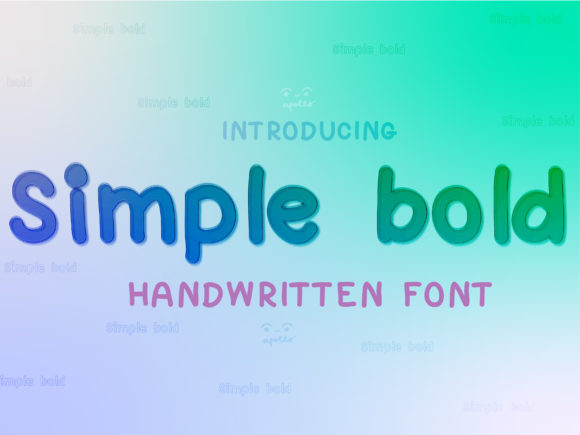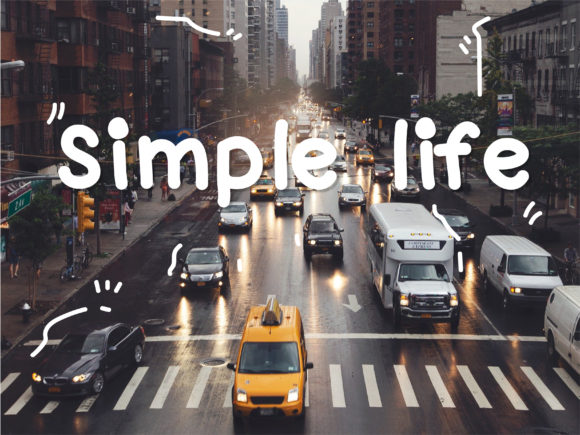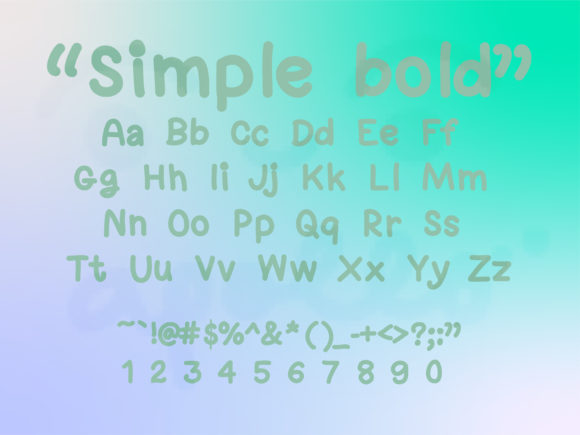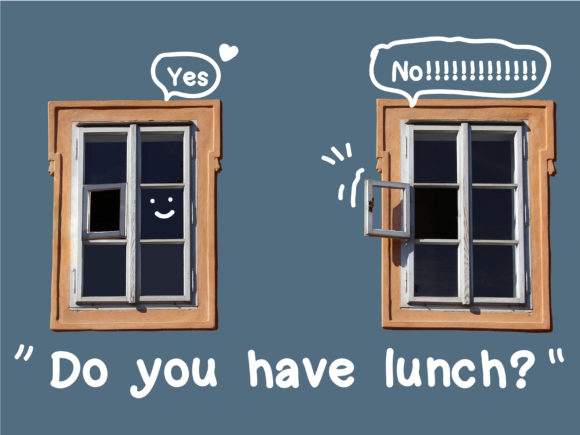
Simple Bold Text Font
About Simple Bold Text Font
Simple Bold Text is a clean and friendly handwritten font. This original look will appeal to a wide range of crafty ideas, from letterheads and titles, to stationery.